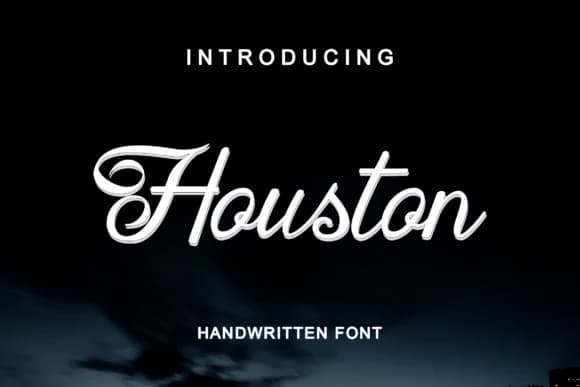
1 / 5About Houston Font
Houston Font by leparte studio is a contemporary handwritten script that blends flowing letterforms with modern sensibility. The refined brush strokes convey personal character while maintaining professional polish across different applications. This typeface excels at wedding invitation suites and formal personal stationery where refined letterforms enhance the message without overwhelming it with excessive flourish. The font's natural forms suit boutique product packaging, from artisanal cosmetics labels to specialty food branding, where refined handwriting conveys authenticity and meticulous attention to detail. Houston also performs beautifully for DIY craft signage and Etsy product listings seeking a distinctly human touch paired with contemporary visual polish. The script's legibility at various sizes ensures clarity whether applied to delicate product tags or expansive display work, making it reliably adaptable across diverse applications and formats. Unlike purely decorative scripts that sacrifice readability, Houston maintains its graceful, natural character alongside genuine legibility, a balance appealing to designers needing fonts capable of performing effectively in both print and digital environments. The typeface brings personality to professional work without compromising function, making it reliable for projects ranging from upscale luxury branding to handmade product lines where authenticity and craftsmanship matter most. Get Houston Font on Creative Fabrica and bring refined script styling to your work.
Houston Font is a script font that shines as a display or heading face. Pair it with a clean sans-serif or serif font for body text β the contrast creates a clear hierarchy while the two styles stay balanced and easy to read.